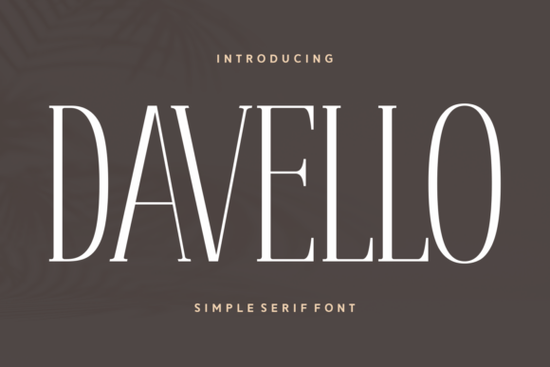
Davello Font is a versatile serif typeface that blends traditional and contemporary design elements. Its clean lines and graceful curves make it ideal for a wide range of projects, from branding to editorial work. Whether you're working on print materials or digital content, Davello adds a refined touch without compromising readability. This font is especially useful for those looking to enhance their visual communication with a touch of elegance.
Designers often seek fonts that are both functional and stylish. Davello fits this need perfectly. It works well in headings, logos, and body text, offering a balanced look that feels timeless. The font’s structure ensures clarity, even at smaller sizes, making it a reliable choice for various applications. If you're looking for a font that can adapt to different formats, Davello is a solid option.
What Makes Davello Font Stand Out?
Davello Font stands out due to its balanced mix of classic and modern characteristics. Unlike some serif fonts that feel outdated, Davello maintains a fresh appearance while retaining the warmth of traditional typography. This makes it suitable for both professional and personal projects. Its versatility allows it to fit into different design styles, from minimalist to more ornate layouts.
The font’s subtle details, such as its rounded serifs and consistent stroke weight, contribute to its overall harmony. These features make it easy to pair with other typefaces, giving designers more flexibility. Whether you're creating a website, a brochure, or a social media graphic, Davello provides a polished look that complements a variety of design elements.
Best Uses for Davello Font
- Branding: Use Davello for logos, business cards, and stationery to create a professional and sophisticated image.
- Print Projects: Its clarity makes it an excellent choice for brochures, posters, and packaging designs.
- Digital Content: Apply it to websites, email newsletters, or social media posts for a refined aesthetic.
- Editorial Work: Davello works well in magazines, books, and articles where readability is essential.
How to Choose the Right Serif Font for Your Project
Selecting the right serif font depends on the tone and purpose of your design. Davello Font is a great choice when you want to convey professionalism and elegance. It avoids being too formal or too casual, making it adaptable to many situations. For a more dramatic or vintage feel, you might explore other options, but Davello remains a safe and stylish choice.
Consider the context in which the font will be used. If the design is for a high-end brand, Davello’s refined look can help reinforce that image. For more casual projects, it still provides a clean and readable appearance. Testing the font in different sizes and backgrounds can help you determine how well it performs in your specific use case.
Tips for Using Davello Font Effectively
- Pair it with a sans-serif: Combining Davello with a modern sans-serif font can create a dynamic contrast that enhances readability and visual interest.
- Use it for headings: Davello shines in larger sizes, making it ideal for titles and subheadings.
- Limit the number of fonts: Stick to one or two fonts per design to maintain a cohesive look.
- Test in different formats: Ensure the font looks good on both screen and print to avoid any unexpected issues.
By following these tips, you can make the most of Davello Font’s strengths while avoiding common design pitfalls. Its balance of style and functionality makes it a valuable asset for any creative project.
As you continue to build your design resources, keep in mind the importance of choosing fonts that align with your goals. Davello Font is a reliable choice that can elevate your work without overwhelming your audience. Whether you're a designer, craftsperson, or small business owner, this font offers a practical and elegant solution for your needs.
Before finalizing your design, take a moment to review how Davello Font performs in different contexts. Adjust spacing, size, and color as needed to ensure the best possible outcome. With careful consideration, you can make the most of this versatile typeface.